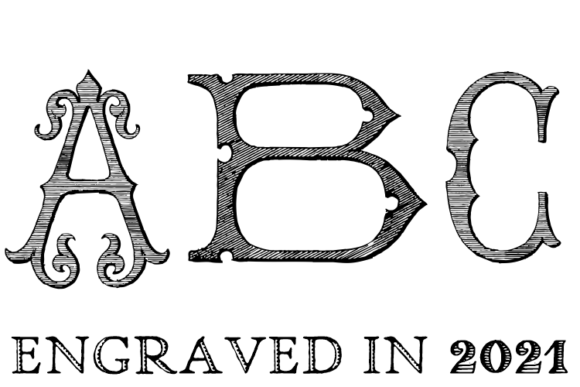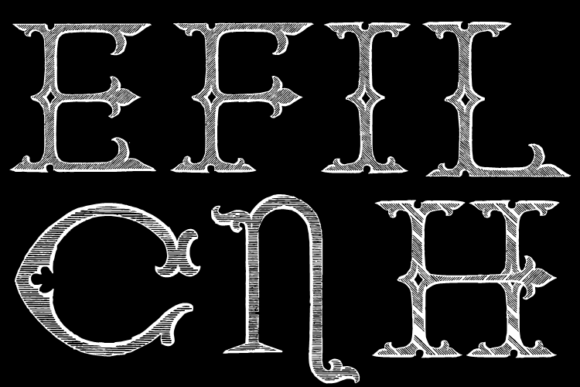
Victorian Alphabets Six Font
Victorian Alphabets Six Font is a cool and adaptable display font. This font is suitable for designs such as t-shirts, sportswear, posters, logos, advertisements, clothing, and more.
Victorian Alphabets Six Font is a cool and adaptable display font. This font is suitable for designs such as t-shirts, sportswear, posters, logos, advertisements, clothing, and more. Whatever the topic, this font will be a great asset to your font collection, as it has the potential to enhance any creation.